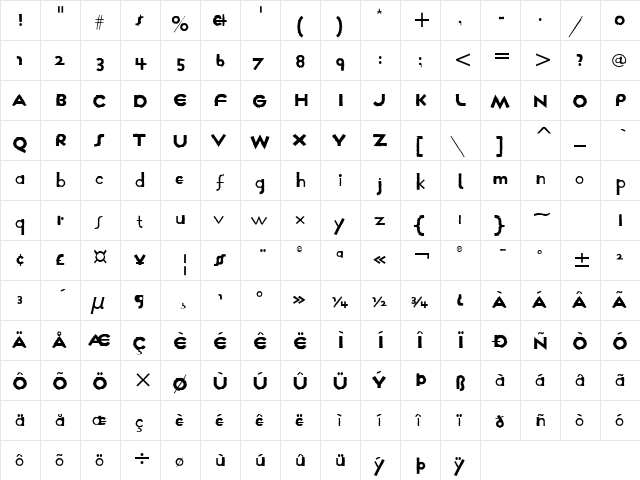
FarmhausNotSoITC Normal Font Preview
FarmhausNotSoITC Normal
Design Context for FarmhausNotSoITC Typeface
FarmhausNotSoITC is a composed and adaptable typeface that performs quietly and consistently across a wide range of design contexts.